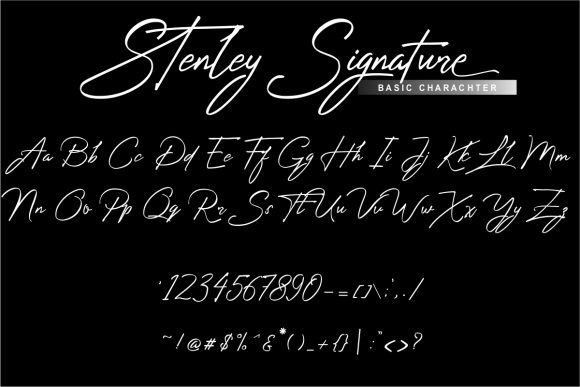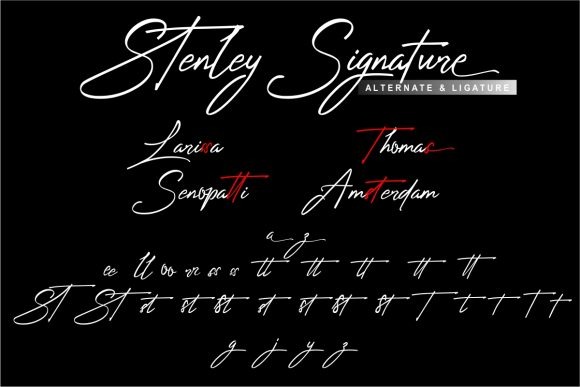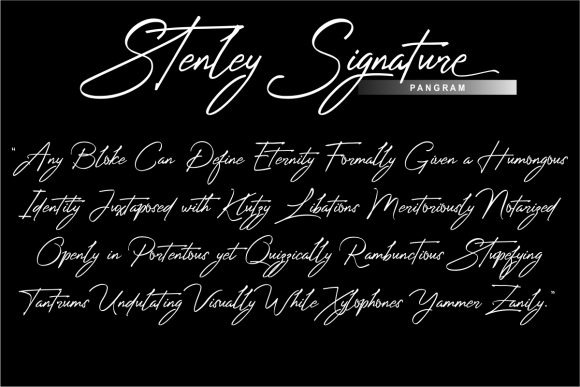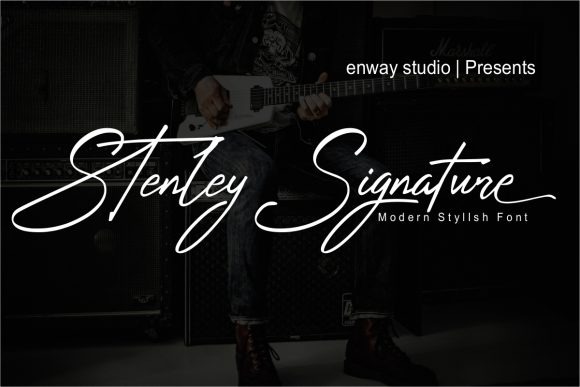
Stenley Signature Font
This is a classy handwritten typeface, with subtle texture imperfections left in , to appear as authentic as possible while remaining clearly legible on your projects. This font looks very natural, perfect for all your large projects that require a handwritten touch.
Stenley Signature font is perfect for branding projects, logo, wedding designs, social media posts, advertisements, product packaging, product designs, label, photography, watermark, invitation, stationery and any projects that need handwriting taste.